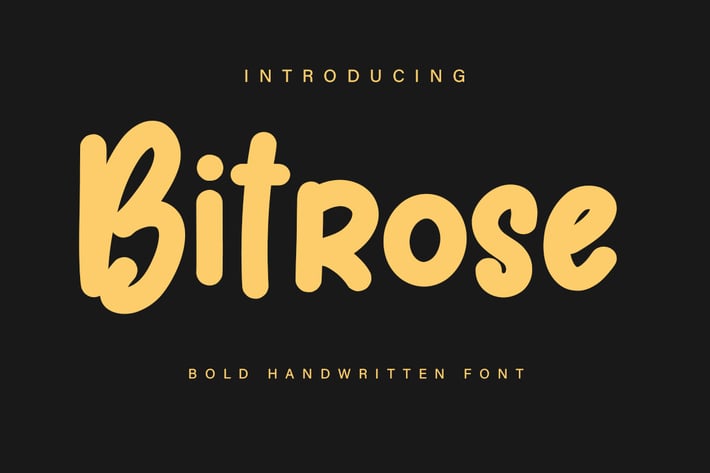
Bitrose - HAndwritten FOnt
Bitrose is a unique and elegant handwritten font. It looks beautiful on a variety of designs requiring a personalized style, This font is PUA encoded which means you can access all of the glyphs and swashes with ease!